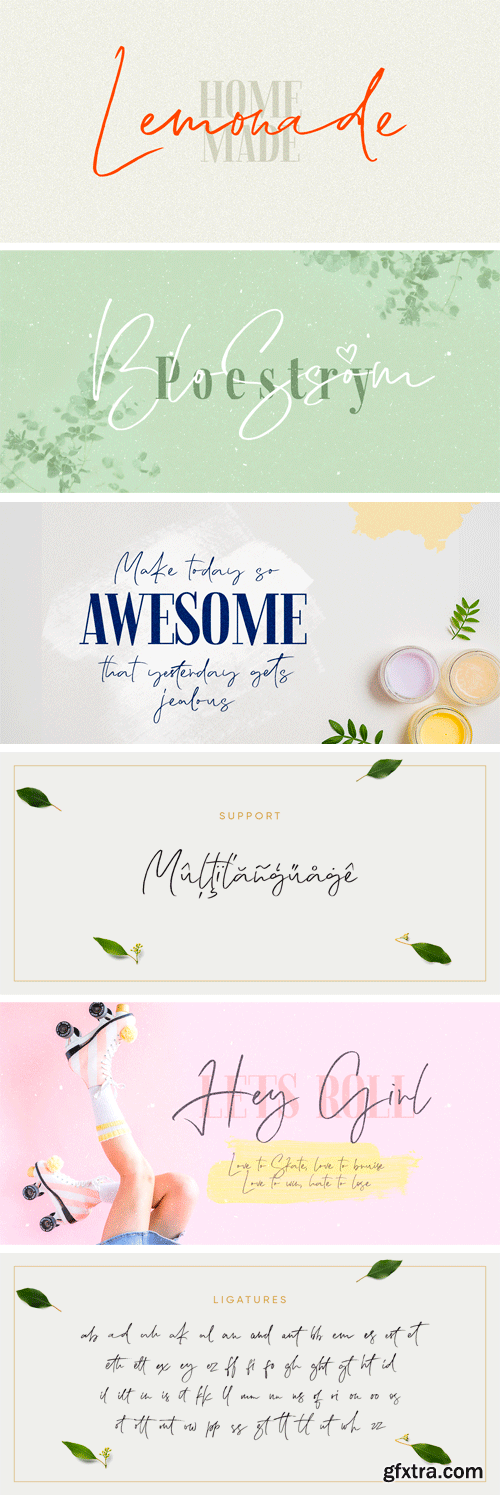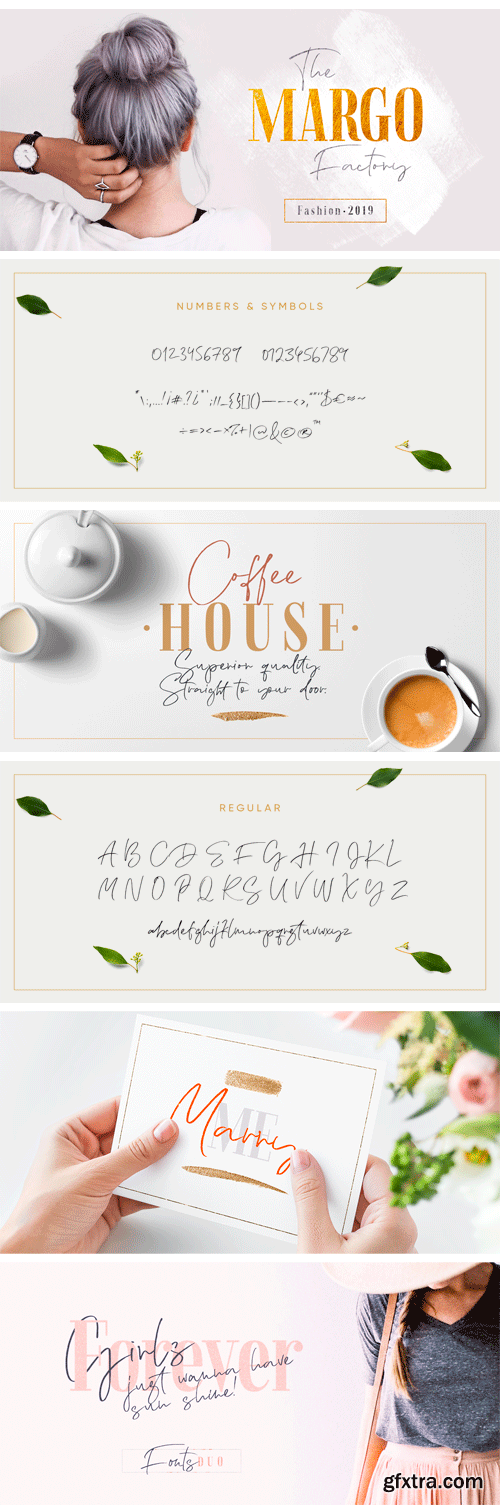
海马柠檬汽水字体家族
Perfect for branding, weddings, presentations, posters, social media, product design, advertising. HM Lemonade Font includes over 50 ligatures to make everything look totally hand-done.